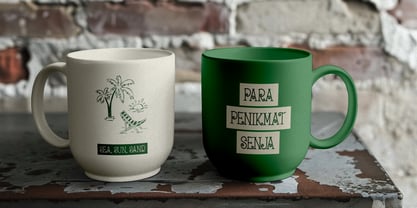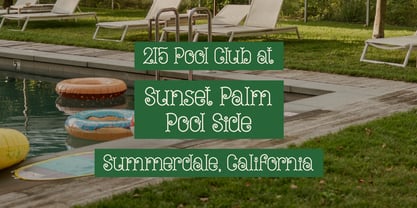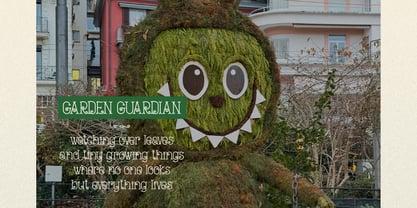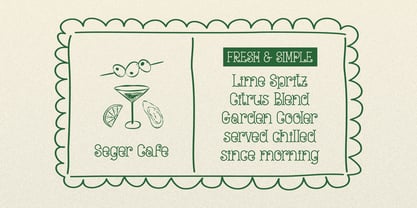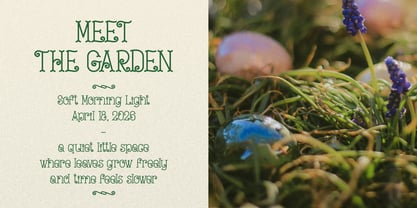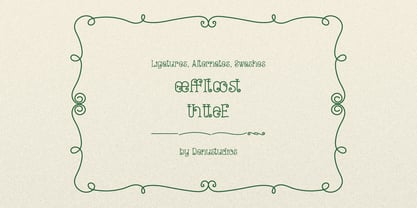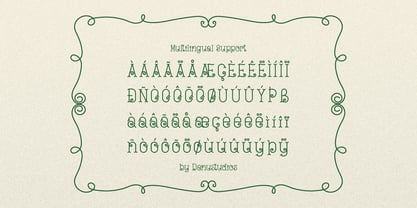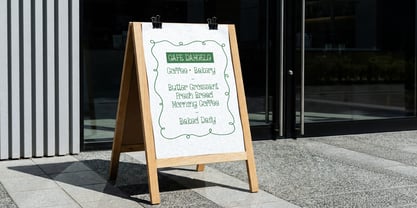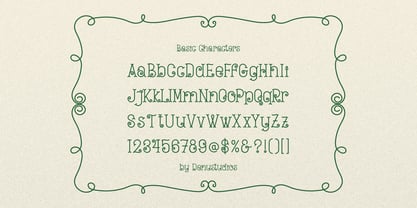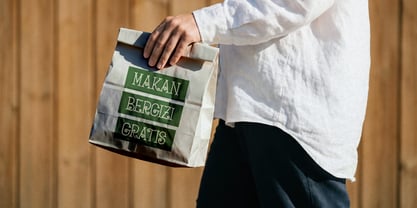
Curlicue Garden
The Curlicue Garden Font Family was designed by Dede Nugraha and published by Denustudio. Curlicue Garden contains 1 styles. More about this family
Curlicue Garden | Whimsical Hand Drawn, from Denustudios, suitable for any projects such as: logos, branding projects, homeware designs, product packaging, mugs, quotes, posters, shopping bags, t-shirts, book covers, name card, invitation cards, greeting cards, label, photography, watermark, special events, and all your other lovely projects that need Hand Drawn a taste.